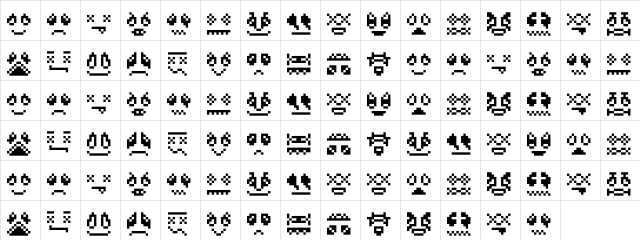
Complete SkrewdUpSoulz Regular glyph index. Displaying only characters natively supported by SkrewdUpSoulz Regular font.
SkrewdUpSoulz is a composed and adaptable typeface that performs quietly and consistently across a wide range of design contexts.